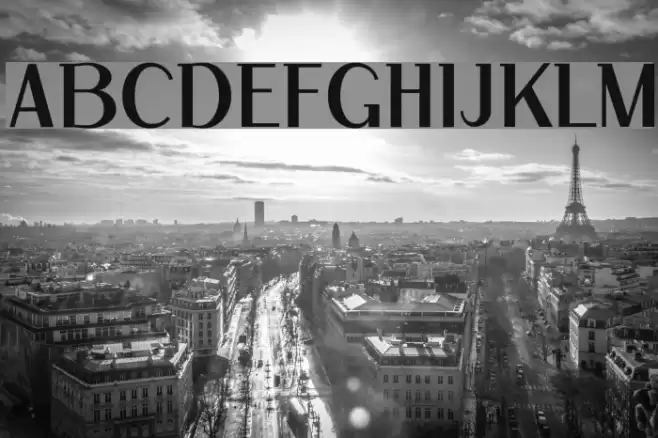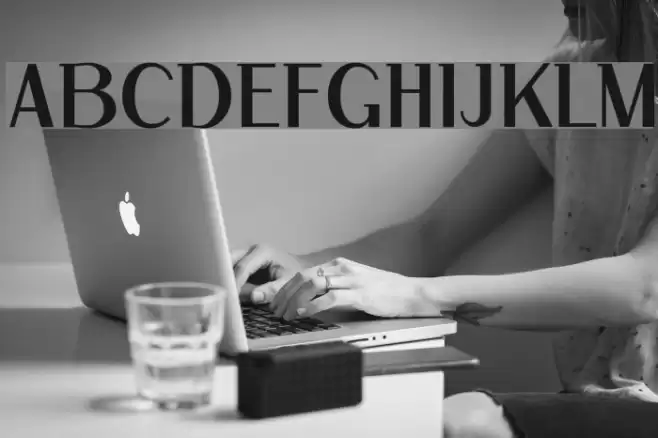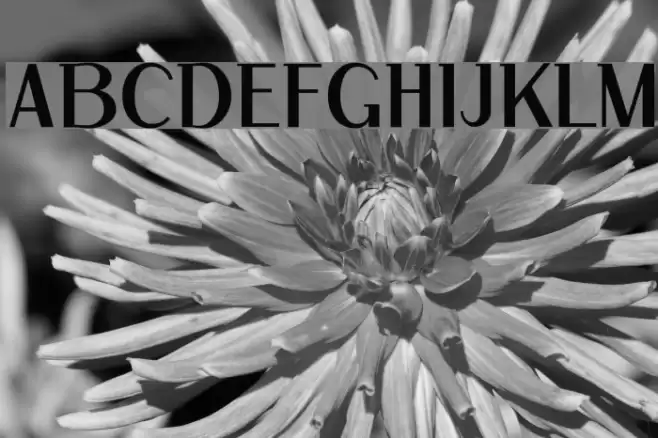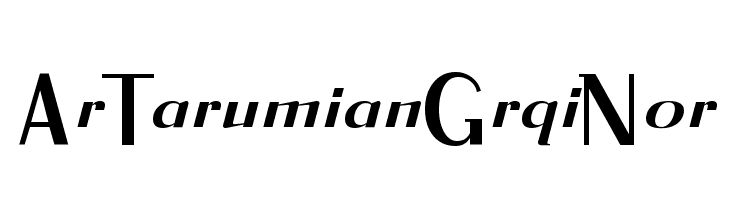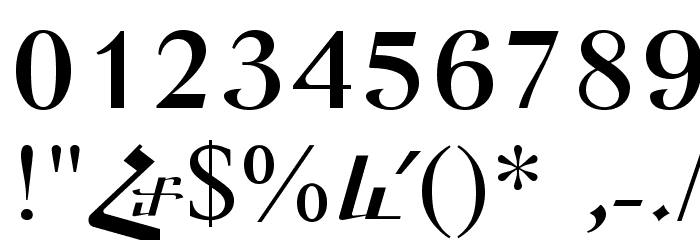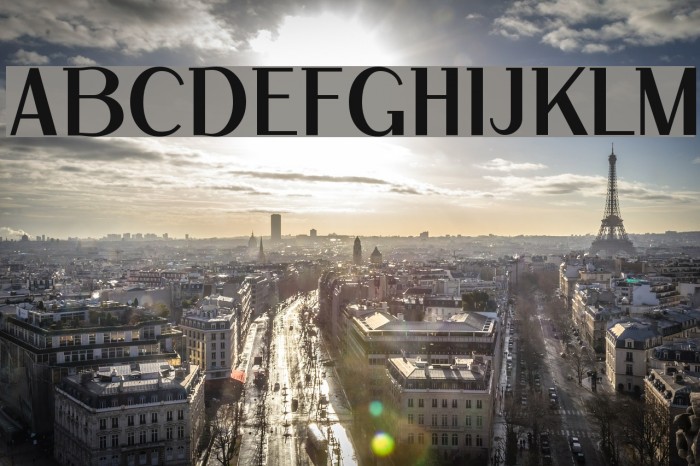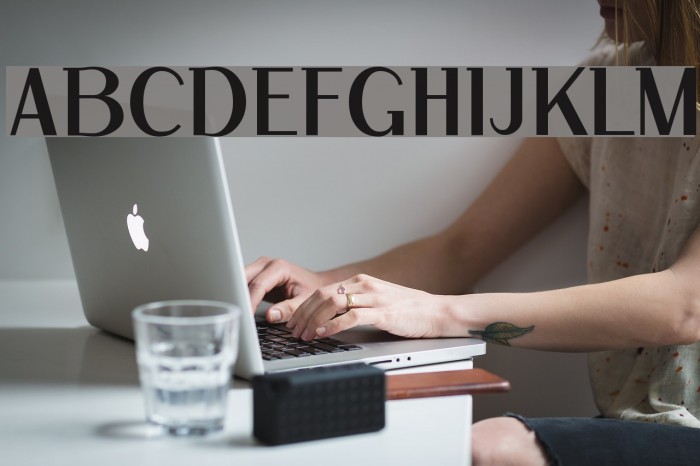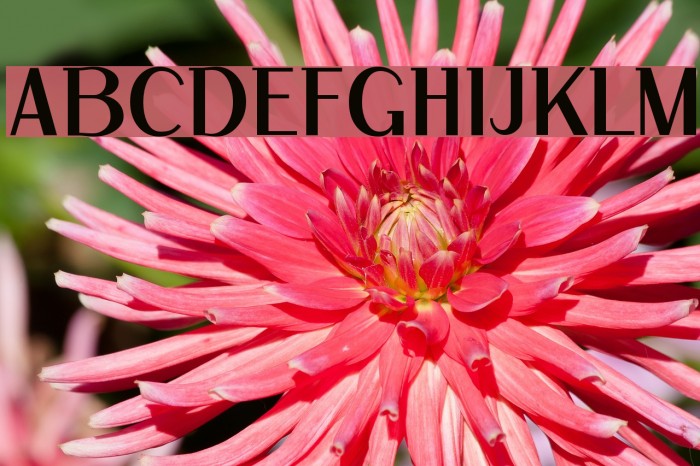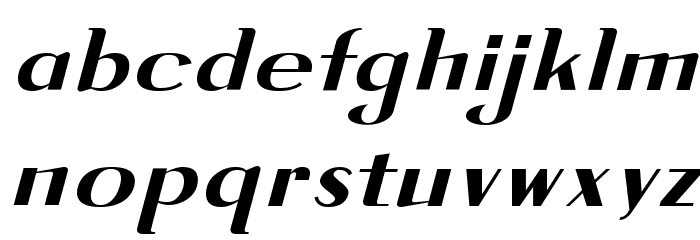
ArTarumianGrqiNor Font
ArTarumianGrqiNor Description
This font exhibits a classic serif style with a modern twist, characterized by its elegant and refined letterforms. The uppercase letters are bold and commanding, while the lowercase letters have a slight italic slant, adding a touch of sophistication. The numerals are clear and distinct, making them easily readable. Special characters are well-designed, maintaining the overall aesthetic of the font. The strokes vary in thickness, providing a medium contrast that enhances readability without sacrificing style.
A classic serif font with modern elegance and medium contrast from Uncategorized fonts.
- Overall Style: Classic